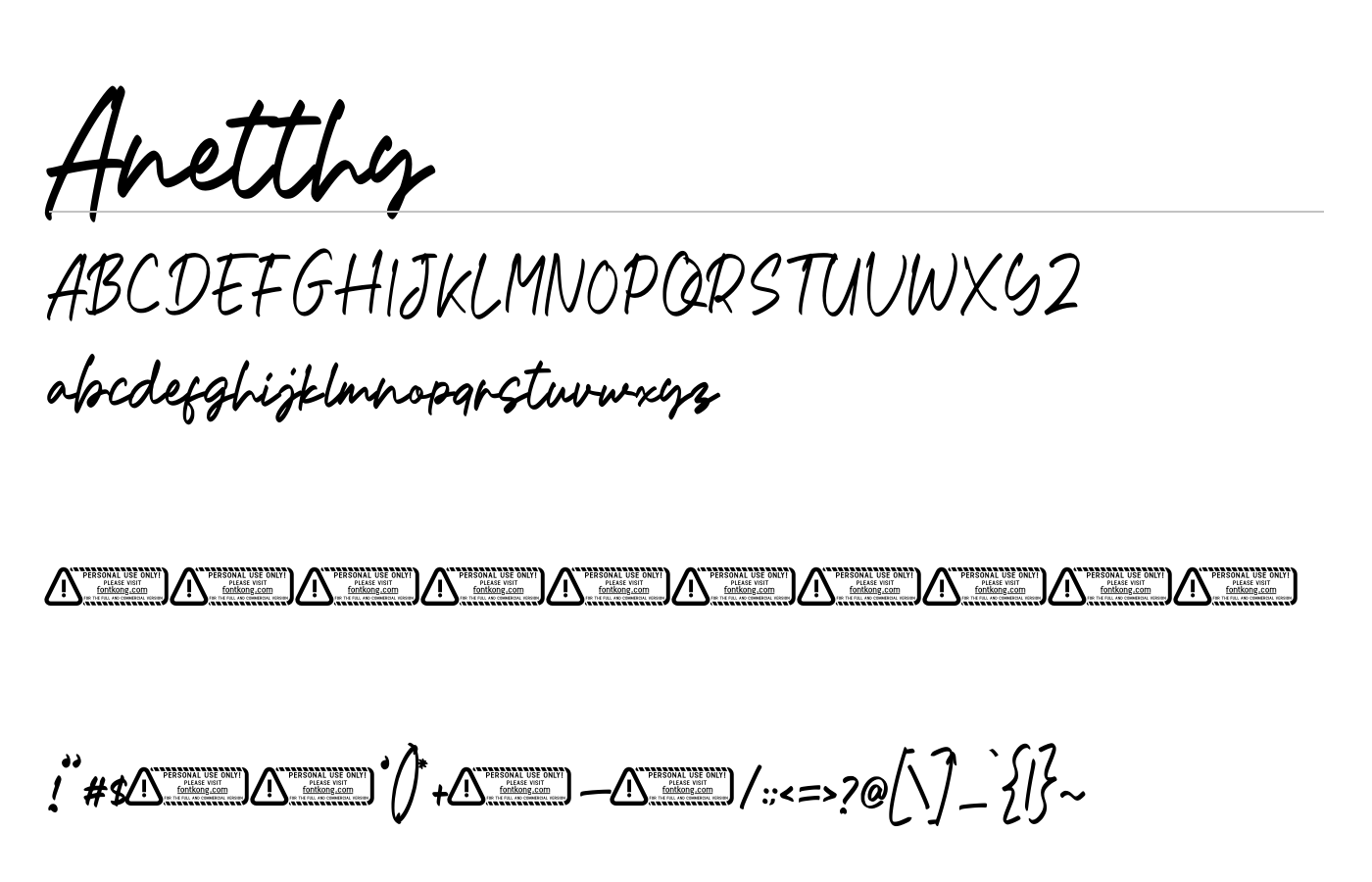
Anetthy is a lively handwritten script font featuring smooth, flowing strokes with medium weight and a casual yet elegant feel. Its mixed-case letterforms, slightly slanted style, and organic shapes make it perfect for personal branding, invitations, and creative projects that need a warm, approachable touch. This font works well in headlines and logos where a natural, friendly impression is desired.
Anetthy Font
About Anetthy Font